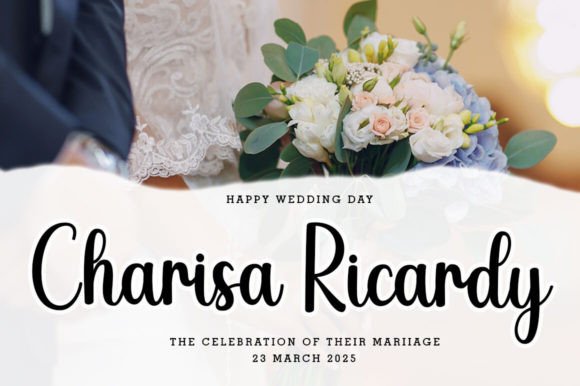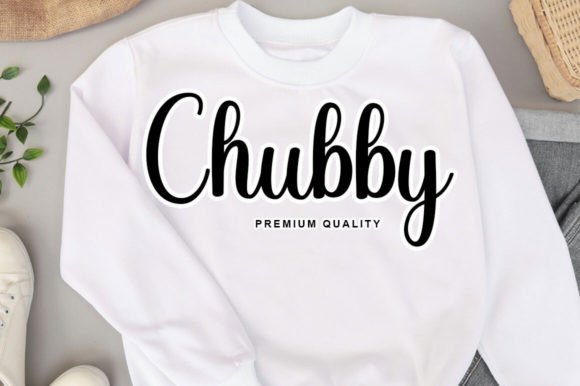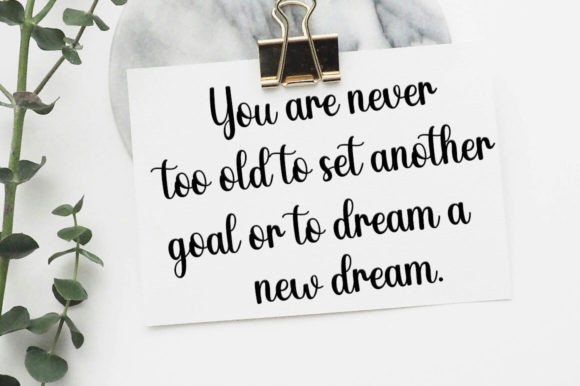
Introduction to Sholy Font
Have you ever found yourself staring at a blank page, searching for the perfect font to bring your creative project to life? As a designer, you know how crucial the right typography can be in making your vision stand out. That’s where Sholy Font comes in – a modern calligraphic design that’s as beautiful as it is versatile.
With its casual, pretty, and sweeping style, Sholy Font is perfect for a wide range of applications, from logos and product packaging to wedding invitations and branding. Its high-quality design makes it an invaluable resource for any designer looking to elevate their work. Whether you’re working on a high-profile project or simply need a reliable design resource, Sholy Font is sure to deliver.
Key Features of Sholy Font
- High-quality design resource with a unique, modern aesthetic perfect for creative projects
- Comes with a transparent background, allowing for seamless integration into various design elements
- Features a high-resolution design, ideal for use in print and digital applications
Honest Review: Sholy Font
As a designer, I’m always on the lookout for high-quality design resources to enhance my creative projects. The Sholy Font caught my attention with its sleek and modern aesthetic, making it a great addition to any design portfolio.
- ✨ High-quality font design with precise lines and smooth curves.
- ✨ Excellent for creating eye-catching titles and headings in any design project.
However, I do have a few limitations to mention:
- ⚠️ Limited font sizes and weights, which may not be ideal for complex design projects.
- ⚠️ No support for transparent backgrounds, which can be a hindrance for designers working with layered designs.
Overall, I’d say the Sholy Font is a solid choice for designers looking for a modern and stylish font to enhance their creative projects. While it has its limitations, its high-quality design and free download make it a valuable resource for any designer.
Sholy Font is commonly used in various design projects, including logos, business cards, and brochures. Its modern and creative design makes it perfect for any project requiring a unique and high-quality look.